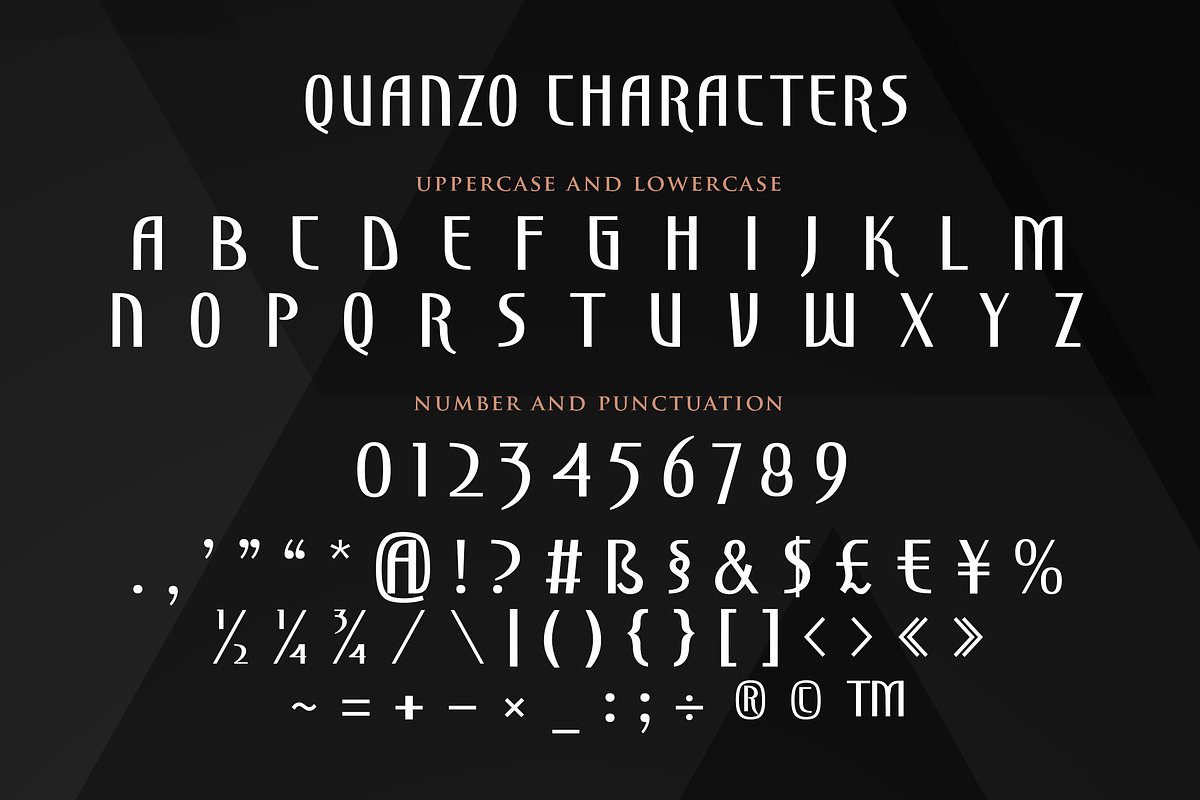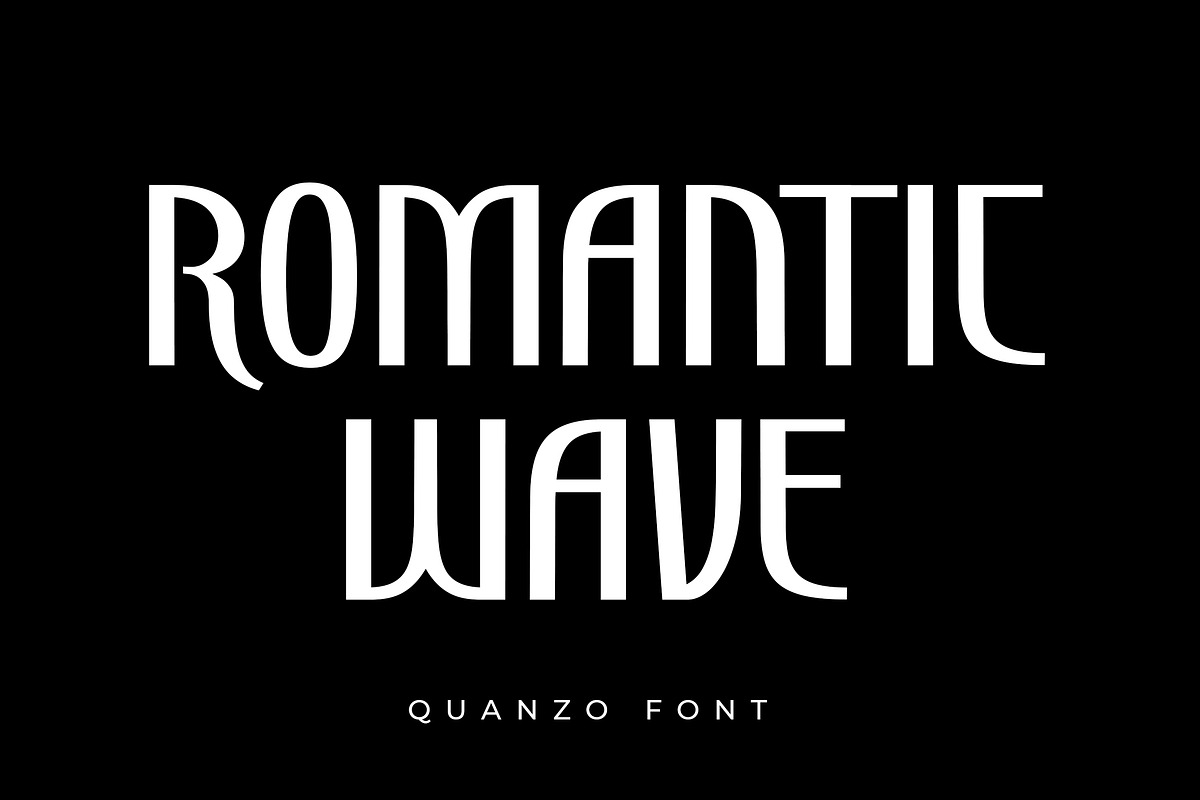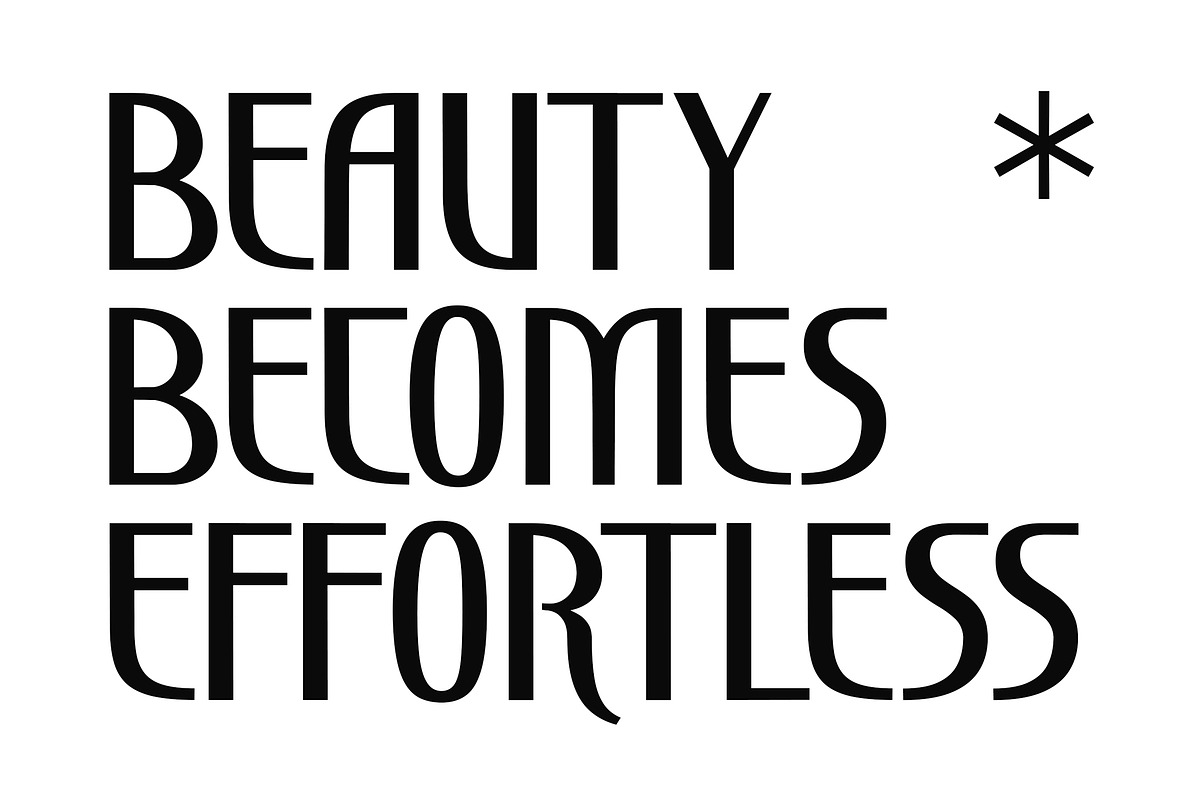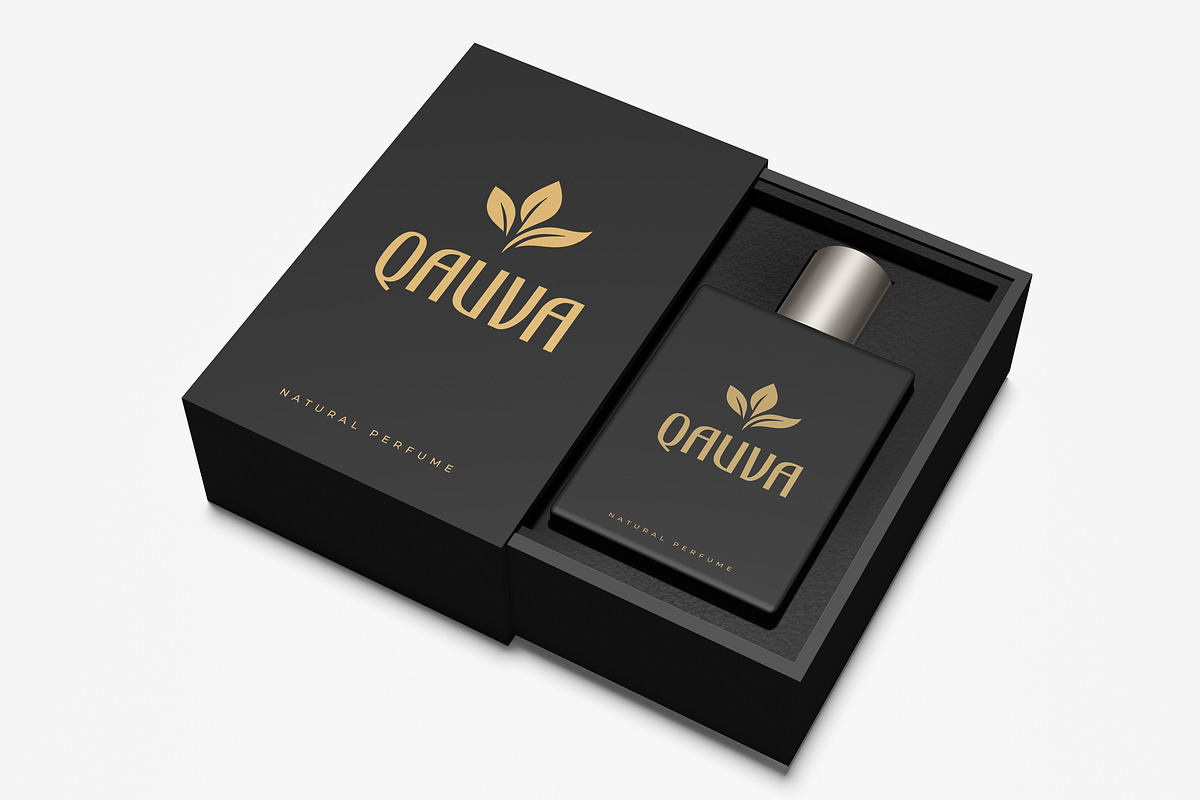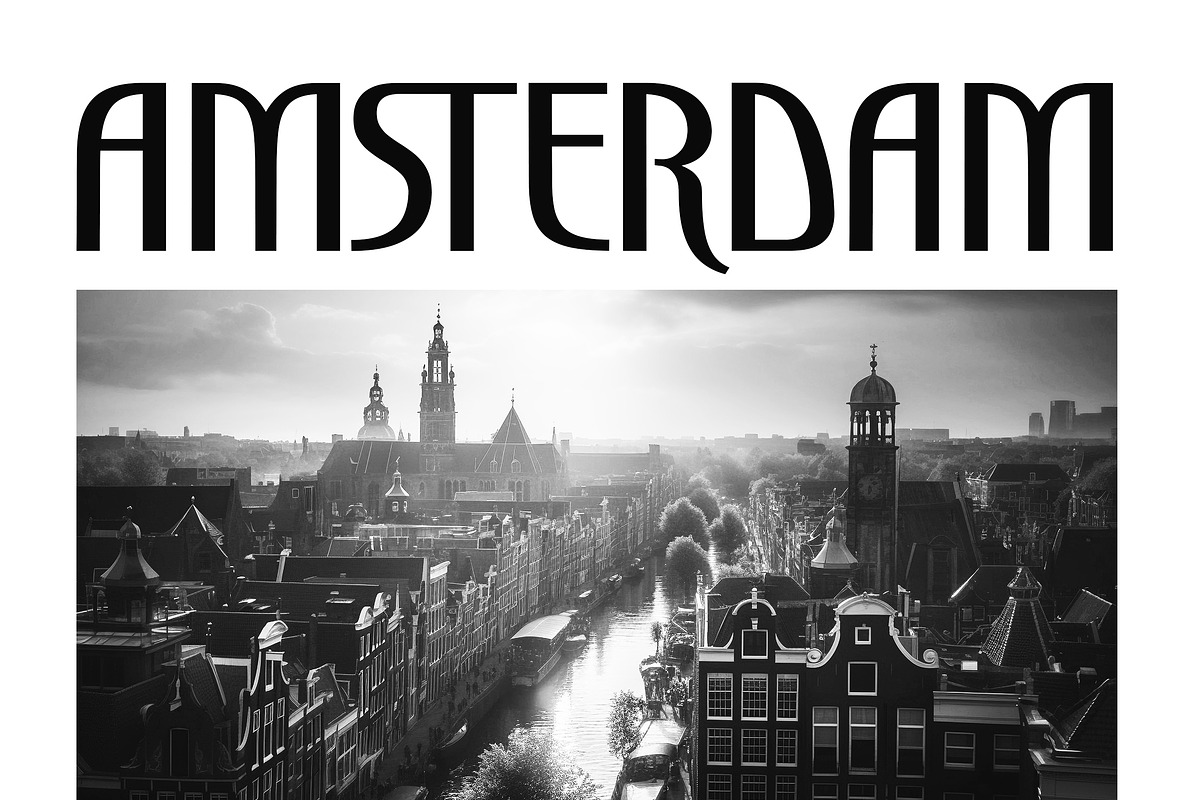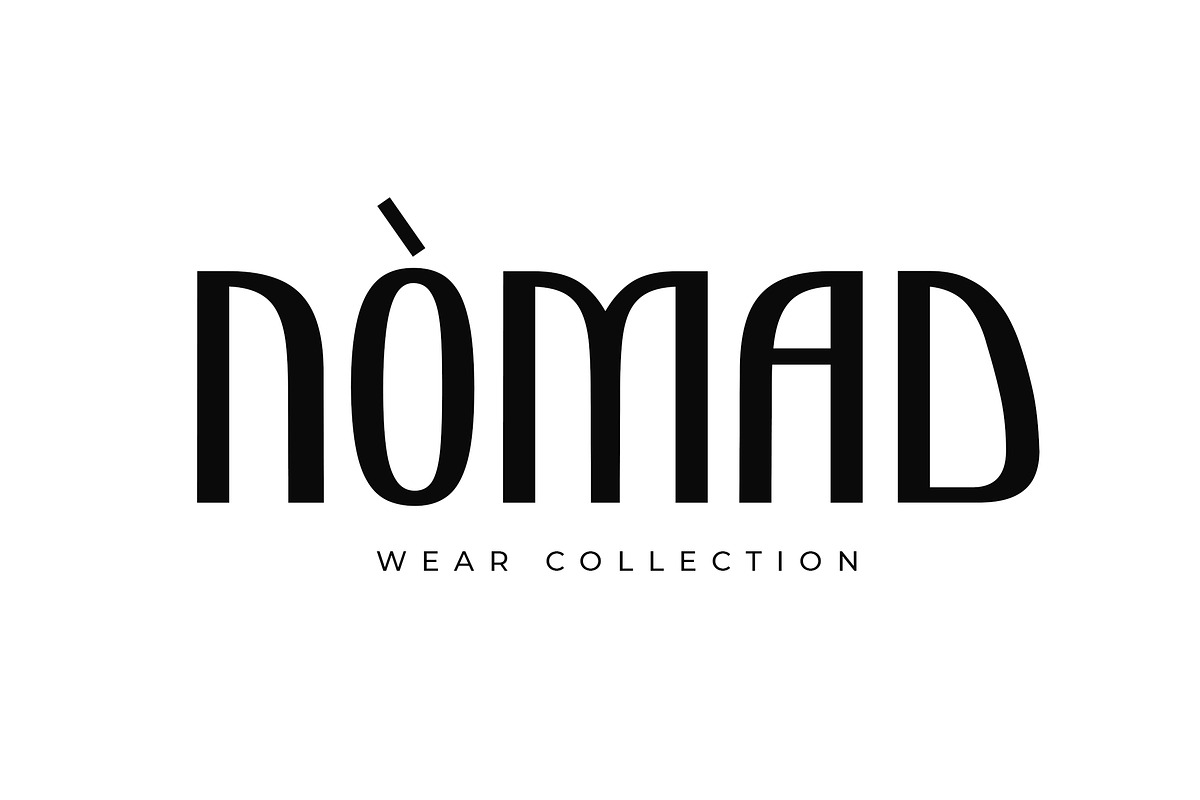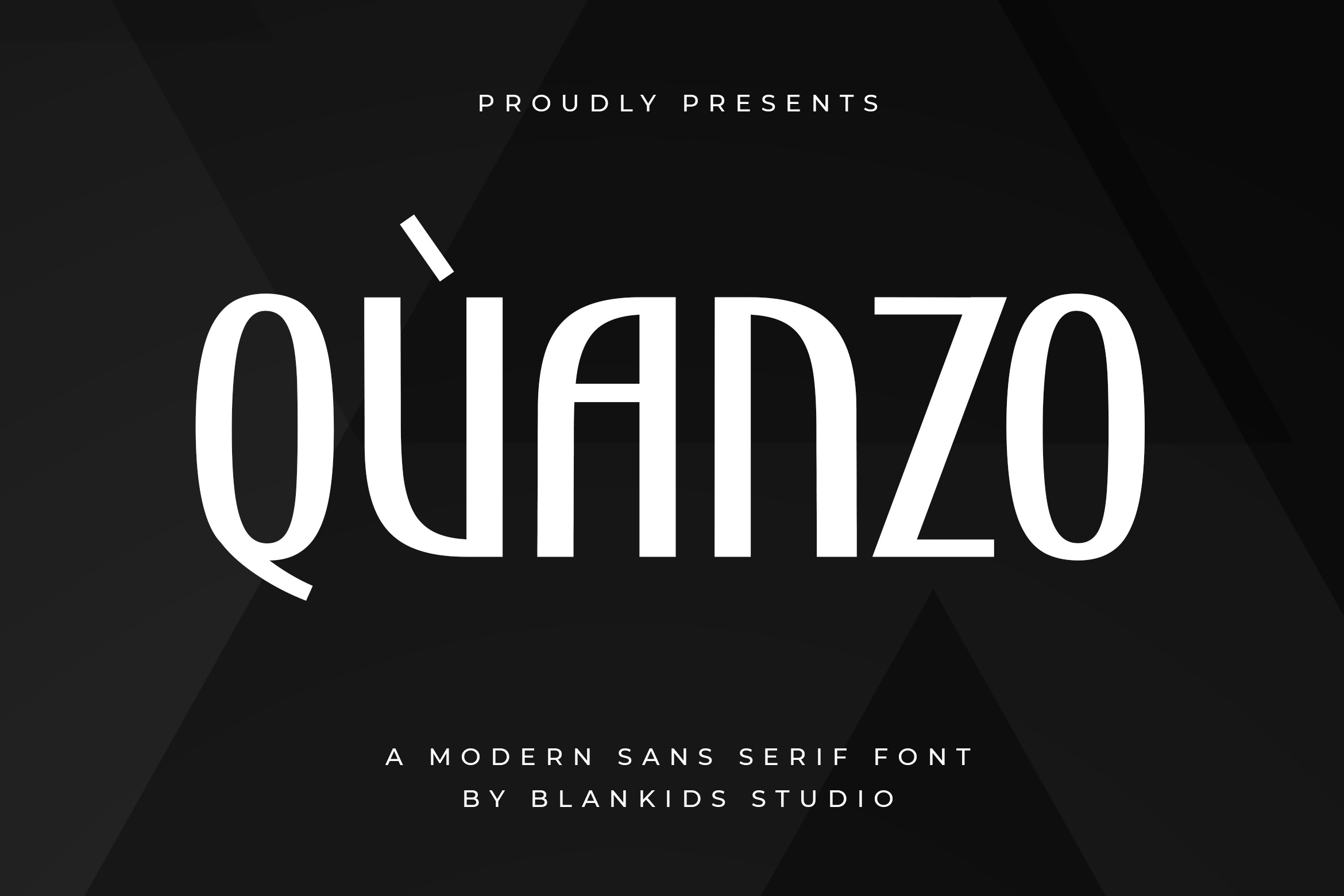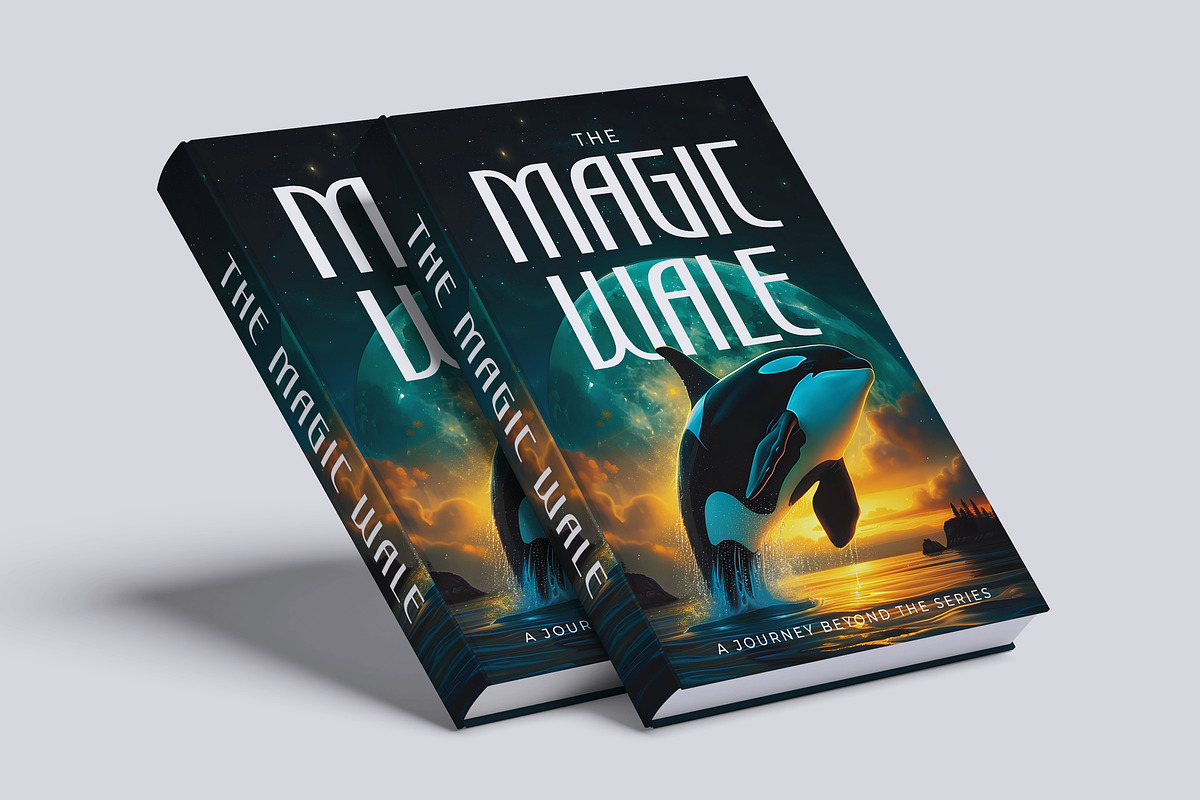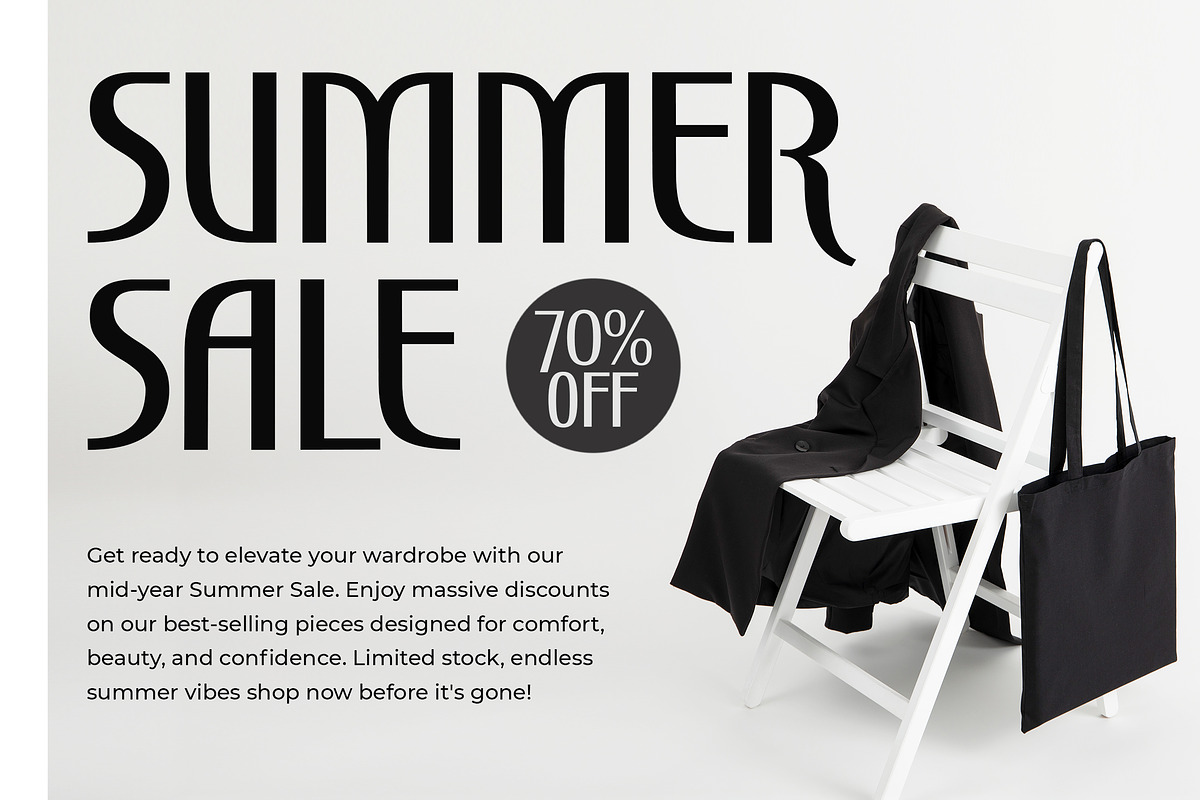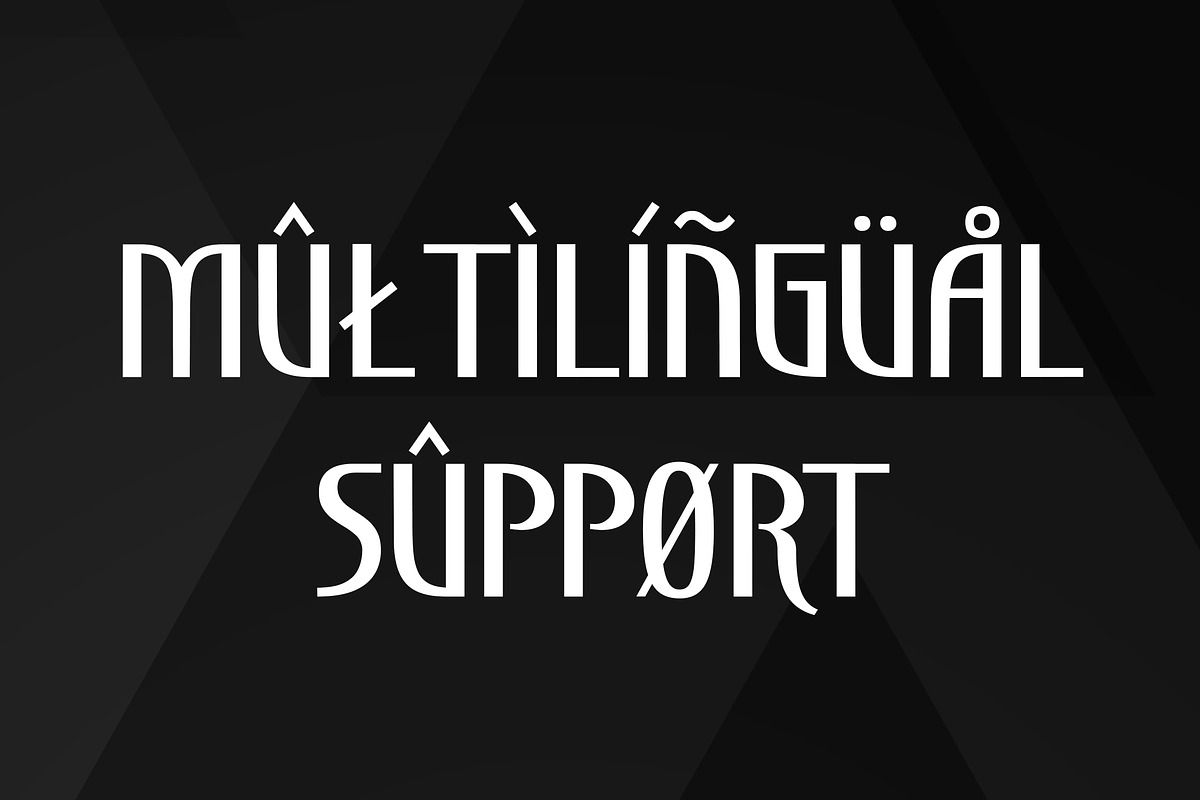
Quanzo a Modern Sans Serif Font
Hello, awesome people! This time, we have a new font called Quanzo a Modern Sans Serif Font by Blankids Studio.
Quanzo a Modern Sans Serif Font is made for any professional project branding, such as logotype, watermarks, poster, branding, promotions, product packaging, etc. Every letter has a modern elegant style design. This font comes in Otf. and Ttf. files.
Quanzo font includes a full set of modern elegant uppercase and lowercase letters, numerals and punctuation. This font has a modern elegant style. See the previews above to get some inspiration on how to use them. Happy designing!